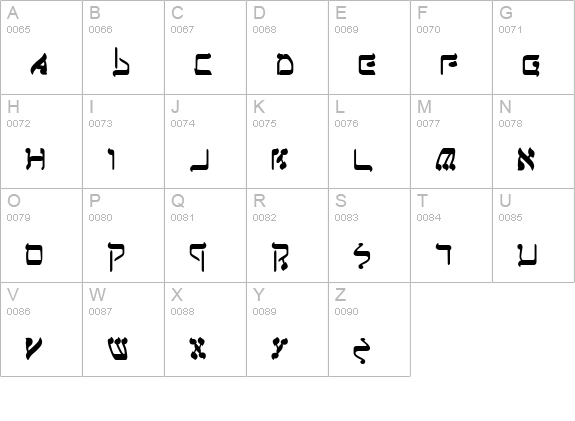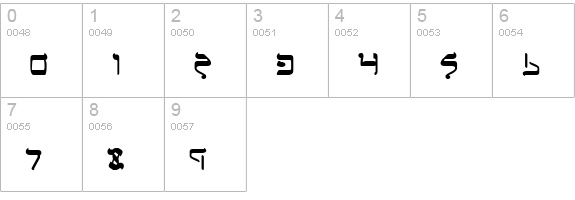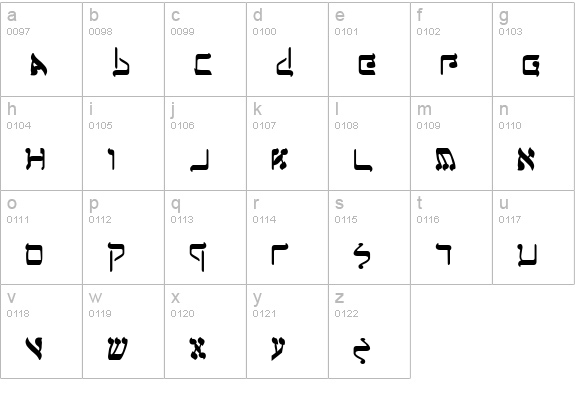
Jerusalem Bold is a strong, high-contrast variant in the Jerusalem typeface family \xE2\x80\x94 well suited to headlines, attention-grabbing titles, and strong calls-to-action.
Introducing Jerusalem Bold font, a captivating and versatile typeface that exudes strength and elegance. With its bold and impactful design, Jerusalem Bold is perfect for making a statement in your projects. This font is ideal for headlines, titles, posters, and any design that requires a touch of sophistication. What's even better is that Jerusalem Bold is available for free download at FontsMarket.com. So, you can easily add this stunning font to your collection without any cost. Don't miss out on the opportunity to enhance your designs with the timeless appeal of Jerusalem Bold. Download it today and elevate your typography game!